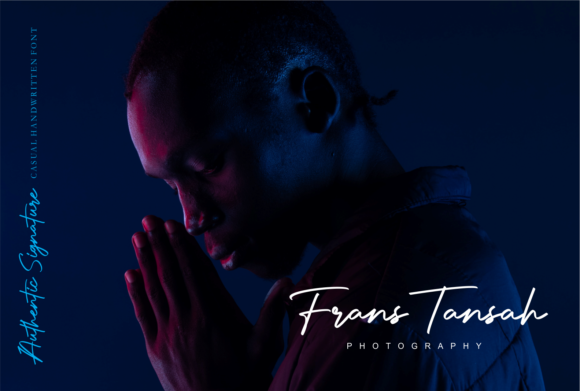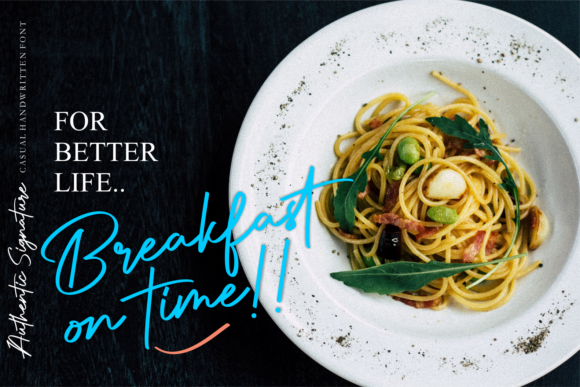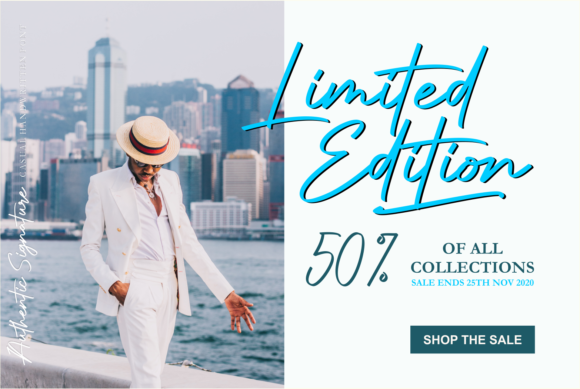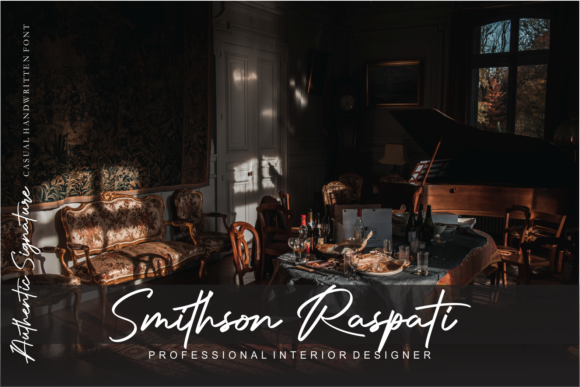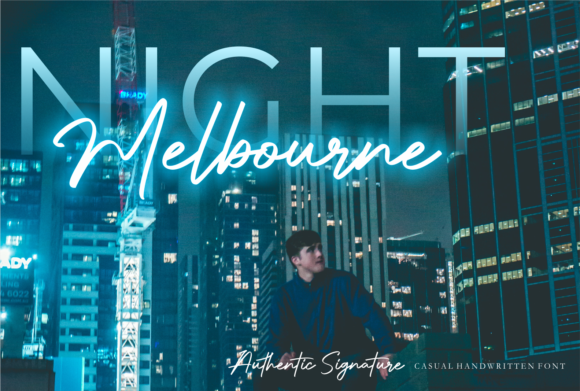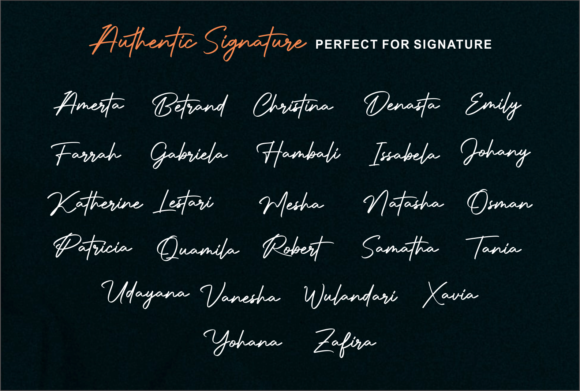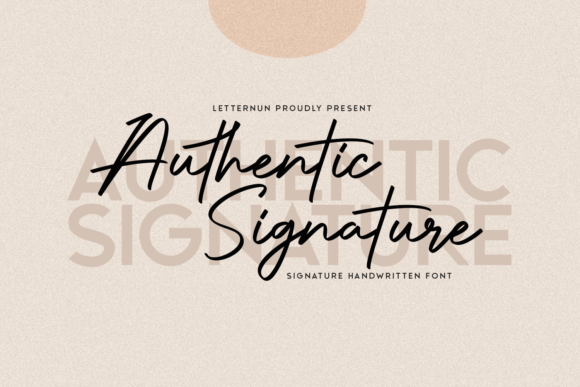
Introducing Authentic Signature Font: Elevate Your Designs with Elegance
In the world of design, fonts play a crucial role in conveying the tone and personality of a brand or project. For those seeking a touch of sophistication and elegance, the Authentic Signature Font is an excellent choice. This fashionable script boasts its own unique curves and an elegant inky flow, making it perfect for a wide range of applications.
What is Authentic Signature Font?
Authentic Signature Font is a beautifully crafted script font that exudes a sense of luxury and refinement. Its unique curves and inky flow give it a distinctive, hand-written feel that is sure to elevate any design project. Whether you’re working on branding, logos, wedding designs, or social media posts, this font is guaranteed to add a touch of elegance and sophistication.
Key Features of Authentic Signature Font
- Unique Curves: The Authentic Signature Font features its own unique curves, setting it apart from other script fonts.
- Elegant Inky Flow: The font’s inky flow gives it a smooth, fluid appearance that is reminiscent of hand-written text.
- Versatile: This font is perfect for a wide range of applications, including branding projects, logos, wedding designs, social media posts, advertisements, product packaging, and more.
- Hand-Written Feel: The Authentic Signature Font has a distinctive, hand-written feel that adds a personal touch to any design project.
Use Cases for Authentic Signature Font
The Authentic Signature Font is an incredibly versatile font that can be used in a variety of contexts. Here are some examples of how you can use this font to elevate your designs:
- Branding Projects: Use the Authentic Signature Font to create a sophisticated and elegant brand identity.
- Logos: This font is perfect for creating logos that require a touch of luxury and refinement.
- Wedding Designs: The Authentic Signature Font is a popular choice for wedding designs, including invitations, stationery, and more.
- Social Media Posts: Add a touch of elegance to your social media posts with the Authentic Signature Font.
- Advertisements: Use this font to create eye-catching advertisements that stand out from the crowd.
- Product Packaging: The Authentic Signature Font is perfect for product packaging that requires a touch of sophistication.
- Label and Photography: Use this font to create beautiful labels and watermarks for your photographs.
- Invitations and Stationery: The Authentic Signature Font is a popular choice for invitations, stationery, and other paper goods.
Why Choose Authentic Signature Font?
There are many script fonts available, but the Authentic Signature Font stands out from the crowd. Here are some reasons why you should choose this font for your next design project:
- Elegance: The Authentic Signature Font exudes elegance and sophistication, making it perfect for high-end designs.
- Versatility: This font can be used in a wide range of contexts, from branding and logos to wedding designs and social media posts.
- Unique: The Authentic Signature Font features its own unique curves and inky flow, making it a standout choice for designers.
- Easy to Read: Despite its elegant appearance, the Authentic Signature Font is easy to read, making it perfect for body text and headlines.
Tips for Using Authentic Signature Font
To get the most out of the Authentic Signature Font, here are some tips to keep in mind:
- Use it Sparingly: While the Authentic Signature Font is elegant and sophisticated, it can be overwhelming if used too much. Use it sparingly to create a sense of luxury and refinement.
- Pair it with Other Fonts: The Authentic Signature Font pairs well with other fonts, including sans-serif and serif fonts. Experiment with different pairings to find the perfect combination.
- Adjust the Size: The Authentic Signature Font can be used at a variety of sizes, from small captions to large headlines. Experiment with different sizes to find the perfect fit for your design.
The Authentic Signature Font is a beautifully crafted script font that is perfect for designers and crafters seeking to add a touch of elegance and sophistication to their designs. With its unique curves and inky flow, this font is guaranteed to elevate any design project. Whether you’re working on branding, logos, wedding designs, or social media posts, the Authentic Signature Font is an excellent choice.